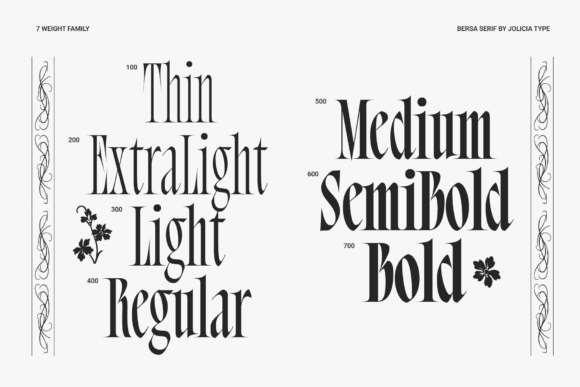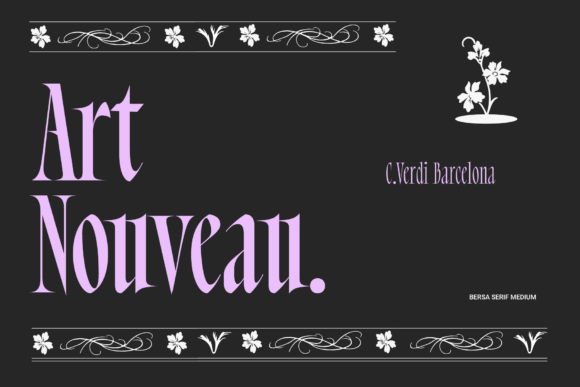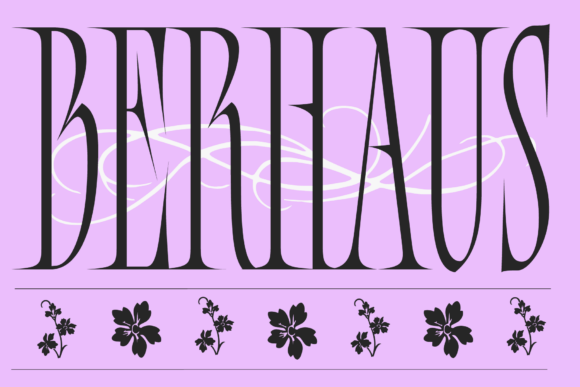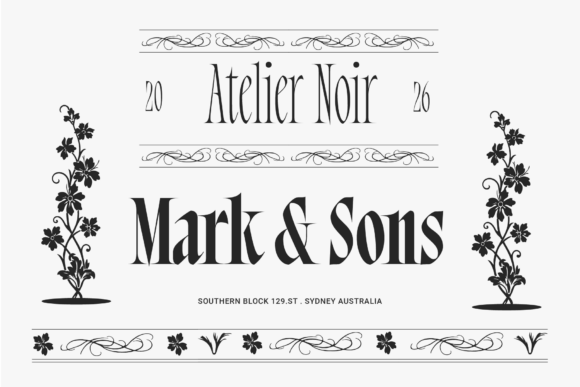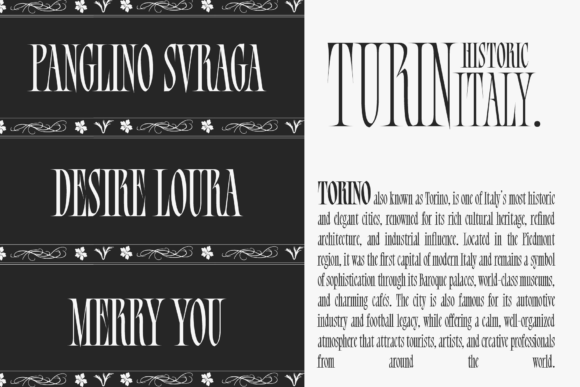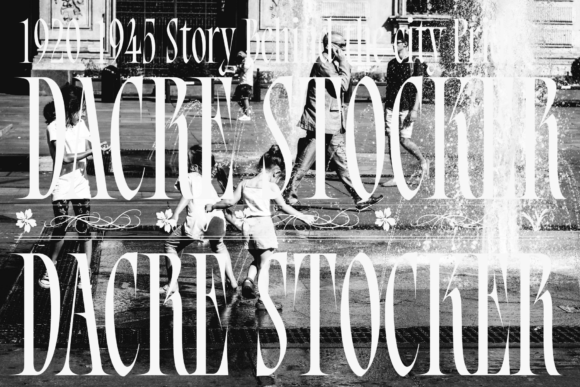
Bersa Serif Font: Elevate Your Design with Elegance and Precision
In the world of typography, the right font can make all the difference in elevating your design from ordinary to extraordinary. Introducing Bersa Serif, a stunning narrow serif typeface that embodies the perfect blend of classic sophistication and modern flair. With its sharp, pointed terminals and subtle blackletter pen strokes, Bersa Serif exudes a bold, elegant, and distinctive character that is sure to captivate your audience.
Design and Features
Bersa Serif is designed with a slim and condensed proportion, making it an ideal choice for designers who need to maximize space efficiency without compromising on visual impact. The font features 7 weights, ranging from Thin to Bold, offering excellent flexibility for various design needs. Whether you’re creating headlines, branding, posters, editorials, or display designs, Bersa Serif provides the perfect solution for projects that demand a powerful, refined, and premium appearance.
Versatility and Creative Possibilities
One of the standout features of Bersa Serif is its incredible versatility. The 7-weight family allows you to play with visual hierarchy, making it perfect for complex layout designs. Pair the heavier weights with the hairline versions of Bersa Serif to create a dynamic, “vogue” inspired aesthetic that adds a touch of sophistication to your design. This font is especially effective for botanical illustrations, boutique wine labels, and fragrance branding where a sense of delicate power is required.
Applications and Use Cases
Bersa Serif is an excellent choice for a wide range of design applications, including:
- Headlines and Titles: The bold and elegant character of Bersa Serif makes it perfect for headlines and titles that demand attention.
- Branding and Identity: The font’s classic structure and modern expression make it an excellent choice for branding and identity designs that require a premium and refined look.
- Posters and Editorials: Bersa Serif’s versatility and range of weights make it ideal for posters and editorials that require a strong visual impact.
- Display Designs: The font’s sleek and condensed design makes it perfect for display designs that require a bold and eye-catching look.
- Botanical Illustrations: Bersa Serif’s elegant and refined character makes it an excellent choice for botanical illustrations that require a sense of delicate power.
- Boutique Wine Labels: The font’s classic structure and modern expression make it perfect for boutique wine labels that require a sophisticated and premium look.
- Fragrance Branding: Bersa Serif’s bold and elegant character makes it an excellent choice for fragrance branding that requires a sense of luxury and refinement.
Why Choose Bersa Serif?
With so many fonts available, why choose Bersa Serif? Here are just a few reasons why this font stands out:
- Unique Character: Bersa Serif’s sharp, pointed terminals and subtle blackletter pen strokes create a bold, elegant, and distinctive character that sets it apart from other fonts.
- Flexibility: The font’s 7 weights offer excellent flexibility for various design needs, making it perfect for a wide range of applications.
- Versatility: Bersa Serif’s versatility and range of weights make it perfect for complex layout designs and pairing with other fonts.
- Premium Look: The font’s classic structure and modern expression make it perfect for designs that require a premium and refined look.
| Author | joliciatype |
In conclusion, Bersa Serif is a stunning narrow serif typeface that offers a perfect blend of classic sophistication and modern flair. With its sharp, pointed terminals and subtle blackletter pen strokes, Bersa Serif exudes a bold, elegant, and distinctive character that is sure to captivate your audience. Its versatility, flexibility, and premium look make it an excellent choice for a wide range of design applications. Whether you’re a designer, craftsperson, or simply someone who appreciates great typography, Bersa Serif is a font that is sure to elevate your design to new heights.